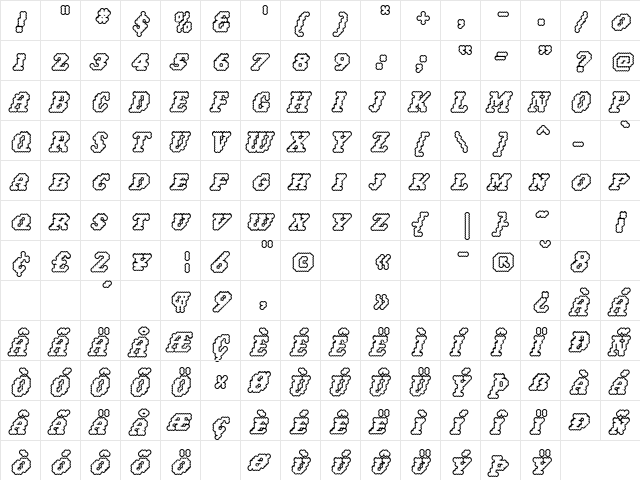
NarlyOutline Roman
Design Context for NarlyOutline Typeface
NarlyOutline brings ornamental detail and strong personality to headlines and identities, where visual impact matters more than quiet functionality.
Font Pairing: Pair with a clean neutral sans-serif for body copy to let NarlyOutline's character lead without overwhelming the composition.
Pro Tip: Use NarlyOutline exclusively at display sizes — it was designed to be seen, not read at length. Let a neutral companion handle body copy.